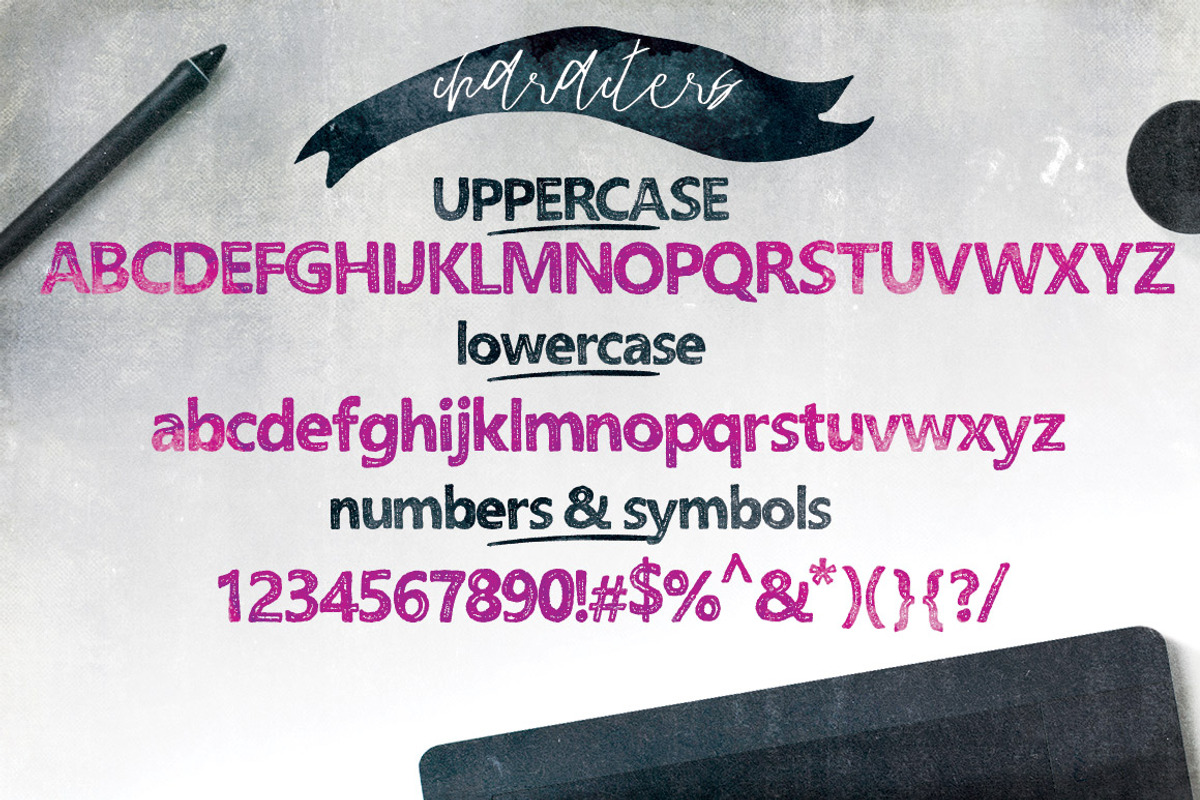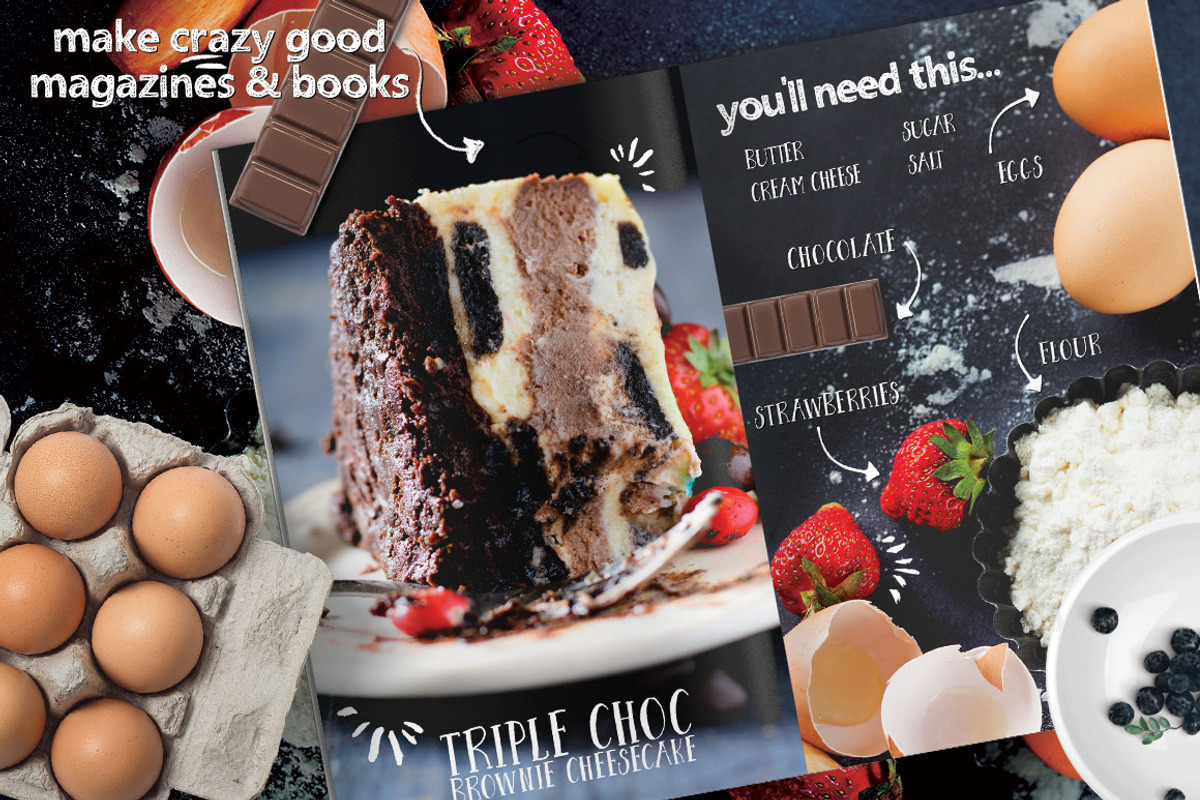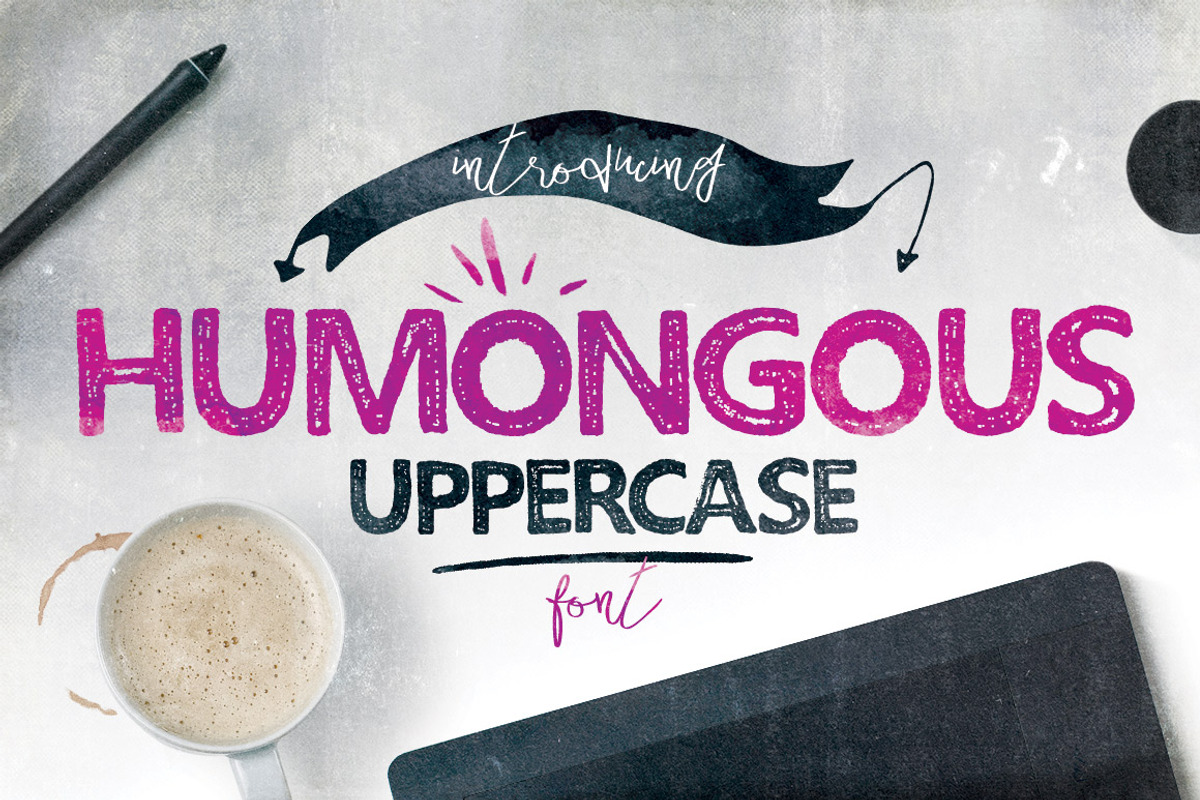
Humongous Font Typeface
Humongous Font Typeface by Creativeqube Design is a font selected for branding, posters, packaging, typography.
- Introducing Humongous Uppercase and Lowercase, an awesome uniform block letter textured font.
Why Humongous Font Typeface is worth a look
Humongous Font Typeface by Creativeqube Design fits naturally into Branding, posters, packaging, typography.